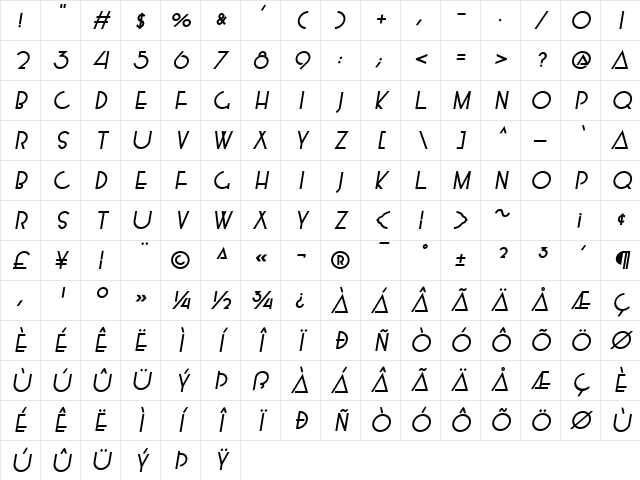
Mossman Bold-Oblique Free Font
Mossman Bold-Oblique
Style: Bold-Oblique
Design Context for Mossman
Mossman is a composed and adaptable typeface that performs quietly and consistently across a wide range of design contexts. The slanted form adds forward momentum and visual energy. Its bold stroke weight gives it real presence on the page.